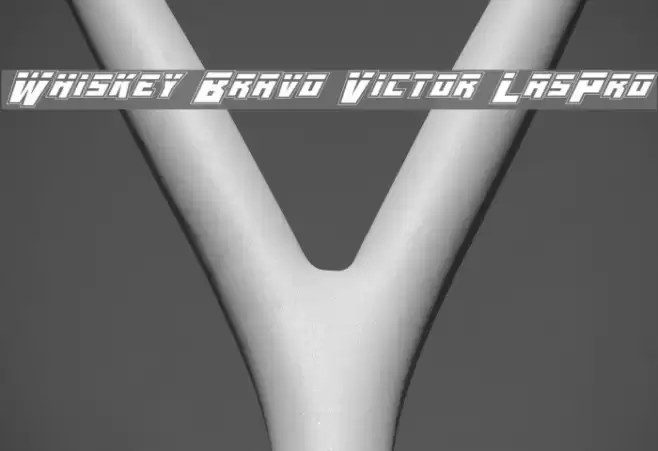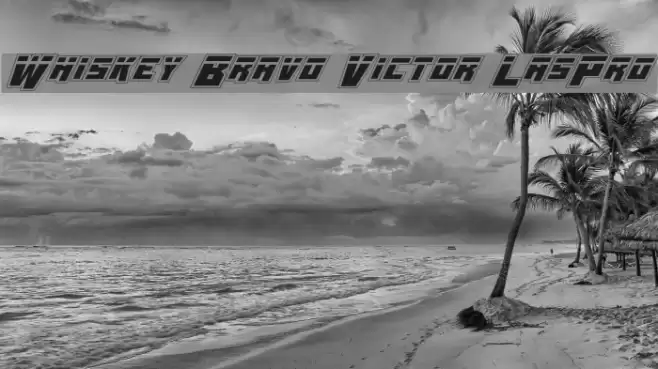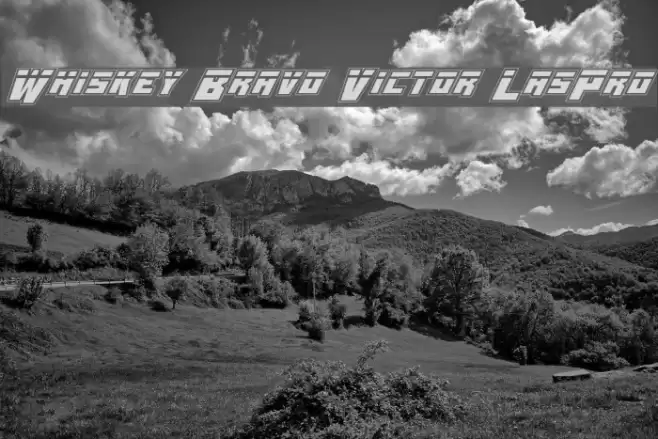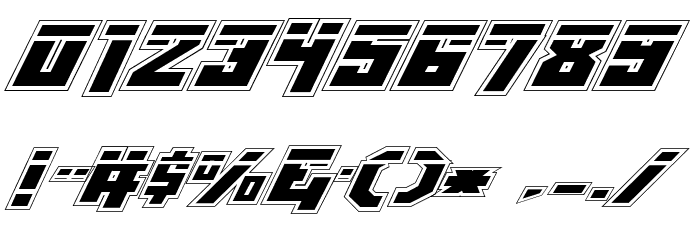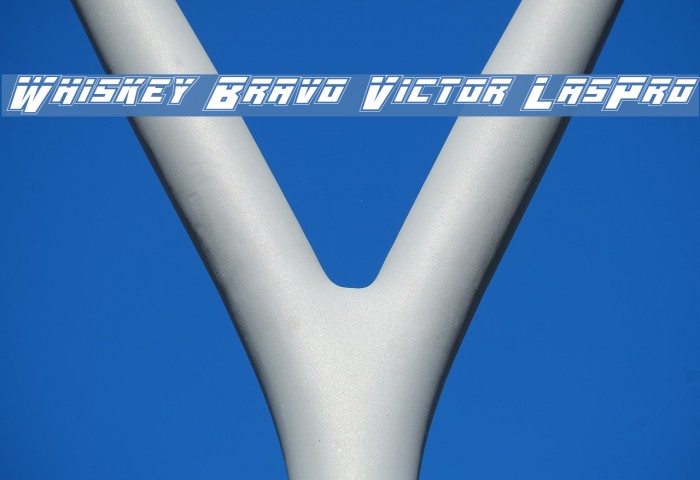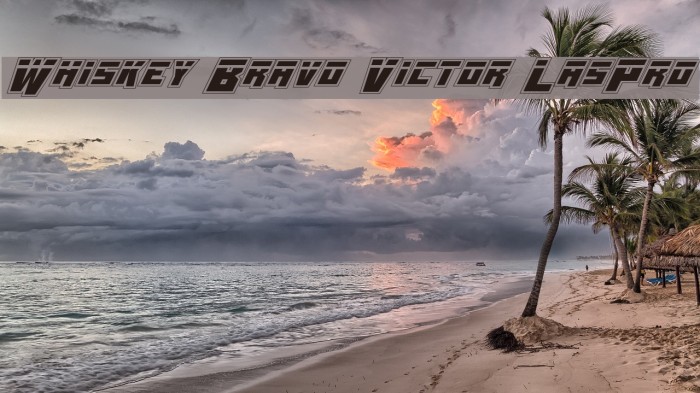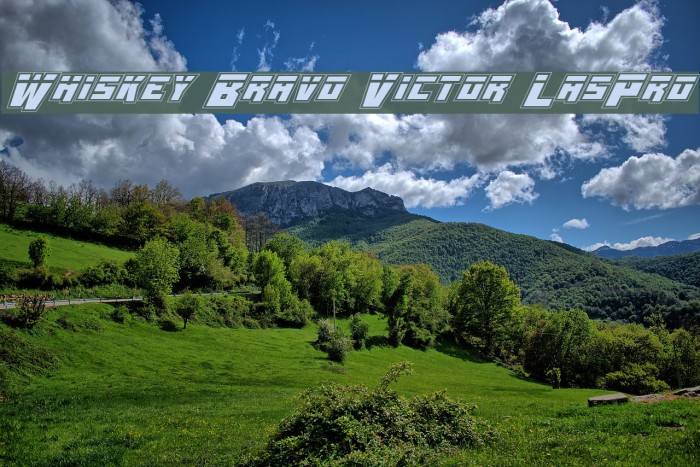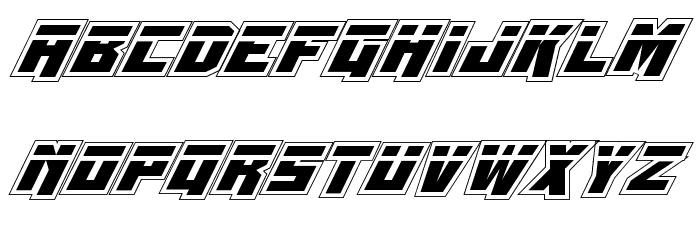
Whiskey Bravo Victor LasPro Font
Whiskey Bravo Victor LasPro Description
This font features a bold, angular design with a strong, dynamic presence. The characters are sharply defined with a distinct geometric style, creating a sense of movement and energy. The letters are outlined with a thick border, enhancing their boldness and making them stand out. The font has a futuristic and industrial feel, suitable for projects that require a modern and edgy look. The numbers and special characters maintain the same angular and bold characteristics, ensuring consistency throughout. This font is ideal for attention-grabbing headlines, logos, and branding materials that aim to convey strength and modernity.
A bold, angular font with a futuristic and industrial design from Capitals fonts.
- Proposed Projects: Ideal for use in branding, logos, sports team merchandise, video game titles, and any project requiring a modern, edgy aesthetic.